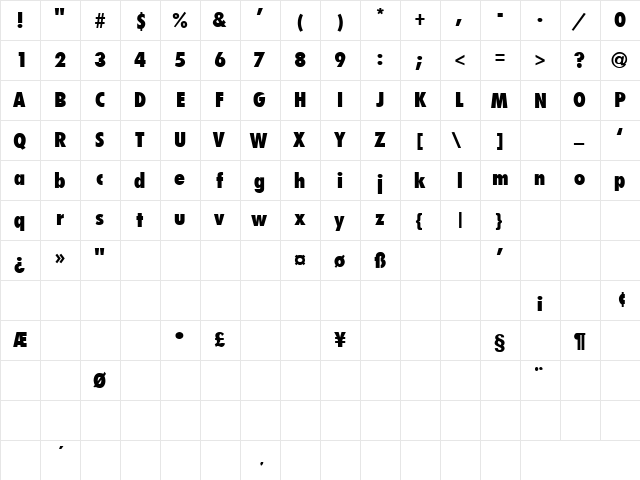
Living 3 Regular
Design Context for Living 3 Typeface
Living 3 takes a measured approach to typography — its balanced proportions and neutral character make it a reliable workhorse for both digital and print work.